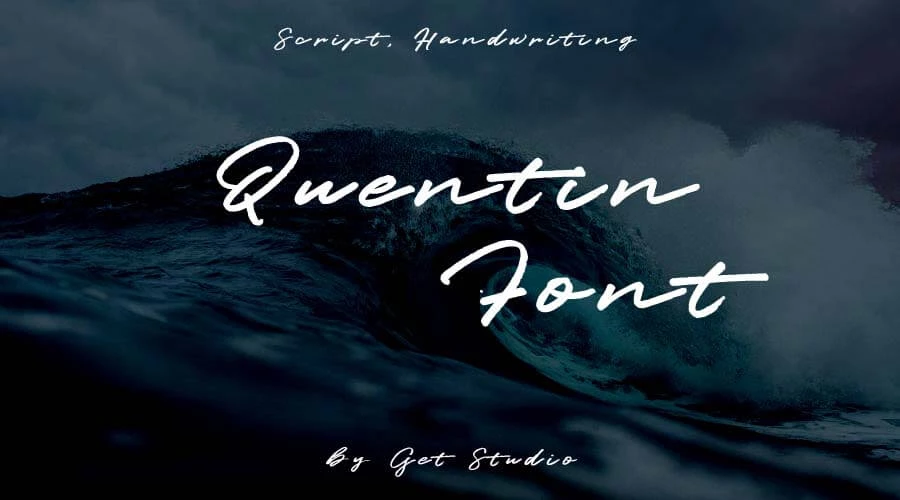
We all look for interesting fonts for our projects. So today we are coming up with an interesting font keeping your words in mind. Introducing Quentin font!
Quentin Font comes from handwriting. If anyone is looking for an interesting and premium free font, Quentin Script Font is suitable for them. Get Studio shared and designed this font. Tomatoes Font, Yolanda Font, Zapfino Font, and Beautiful People Font are mostly similar-looking script fonts to Quentin.
Being a Handwritten script font, Quentin is usable in all cases.
- This font is useful for designing. Quentin will work great in brochures, logos, headlines, banners, posters, book covers, high fashion, and many more. This font is also suitable for websites and games.
- YouTubers can also use this font for their thumbnail and channel art.
So it can be said that this font will come in handy in all your work.